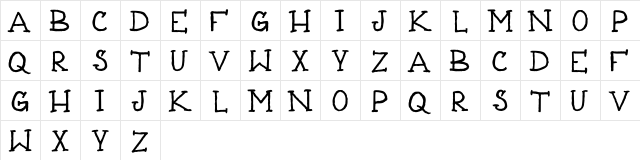
Tattoo Thinline Regular
| Designer | Out Of Step Font Company |
Design Context for Tattoo Thinline Typeface
Tattoo Thinline brings ornamental detail and strong personality to headlines and identities, where visual impact matters more than quiet functionality. The delicate stroke weight brings airiness and refinement to layouts.
Font Pairing: Pair with a clean neutral sans-serif for body copy to let Tattoo Thinline's character lead without overwhelming the composition.
Pro Tip: Treat Tattoo Thinline as the centrepiece of your typographic hierarchy. One strong heading set in a decorative face can carry an entire layout.